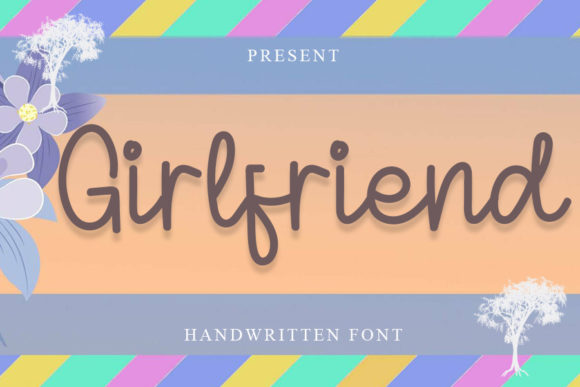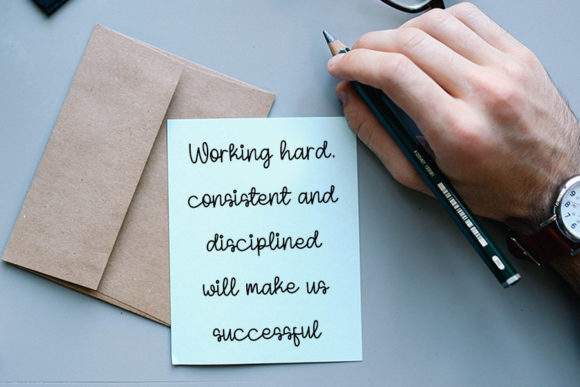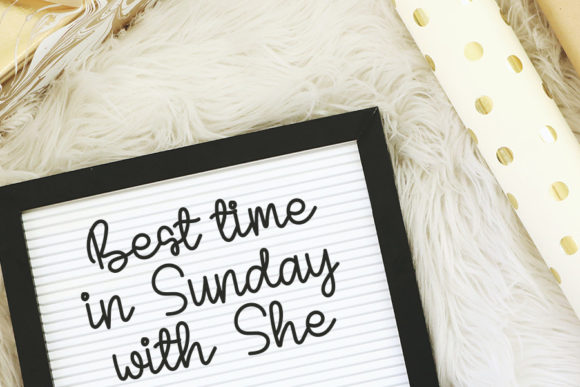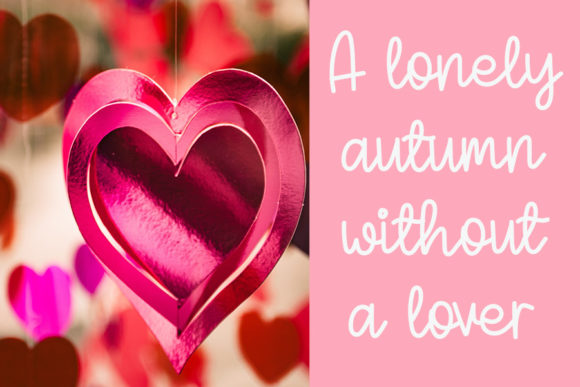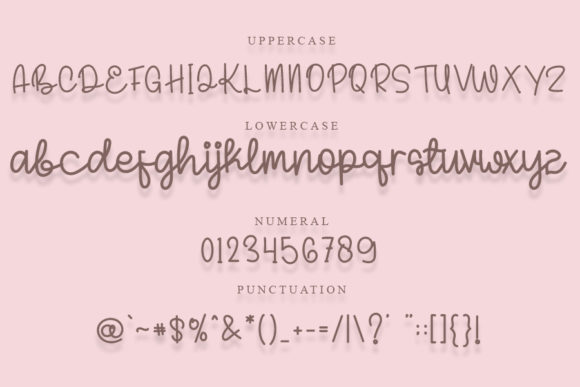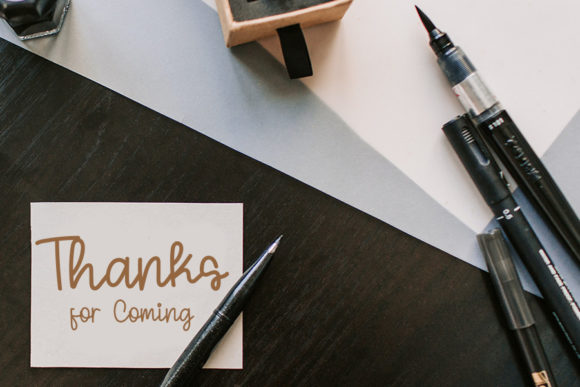
Girlfriend Font
About Girlfriend Font
Girlfriend is a cute and charming handwritten font. Not too thin and not too thick, balanced and varied, this font was designed to enhance the beauty of your projects.